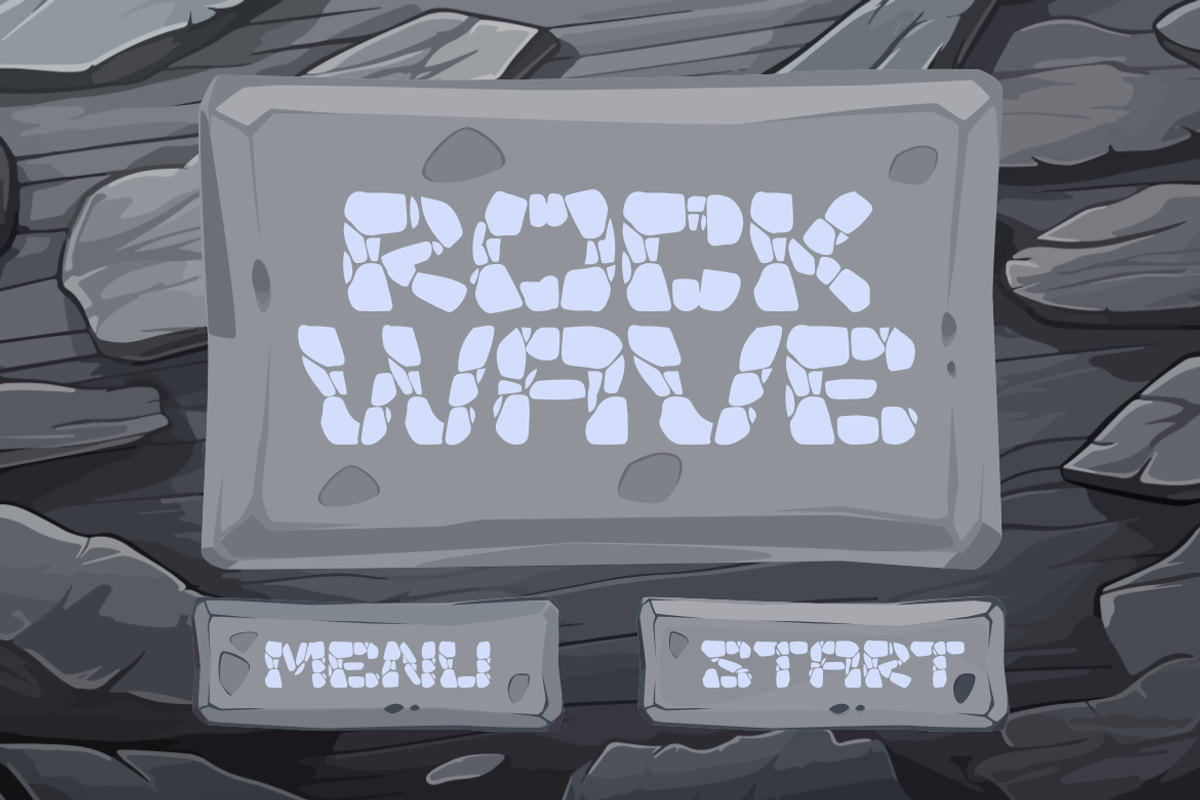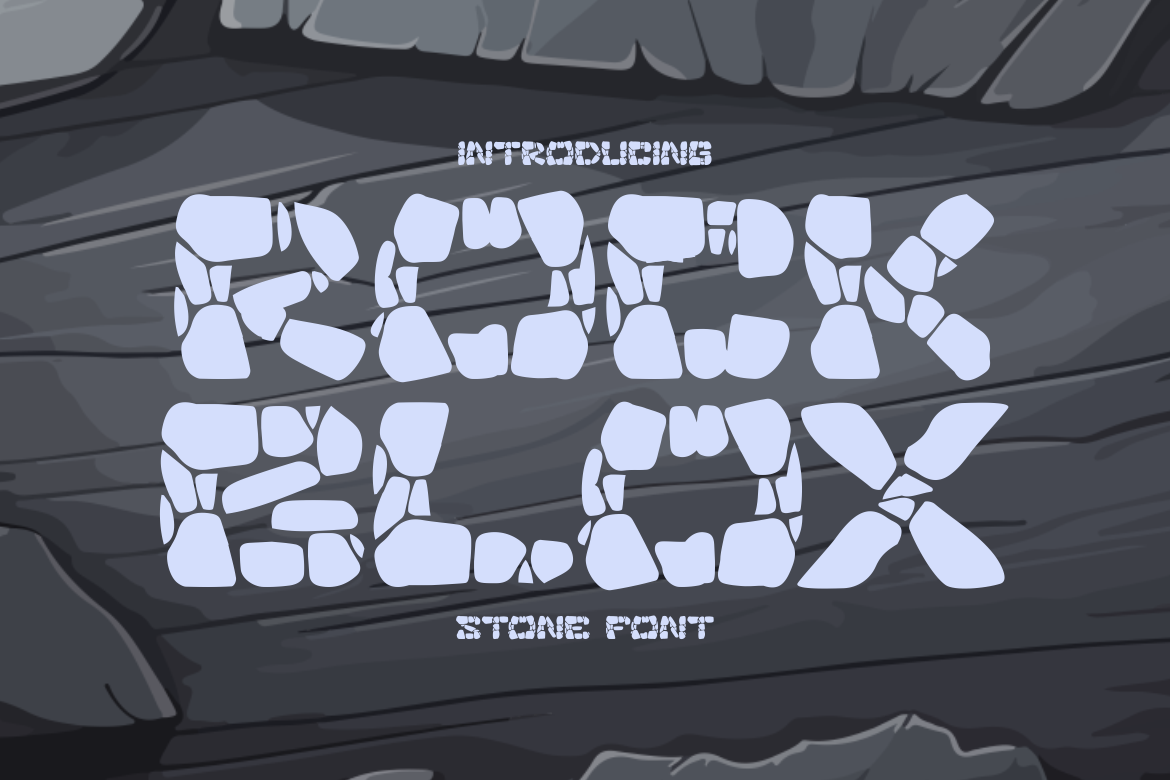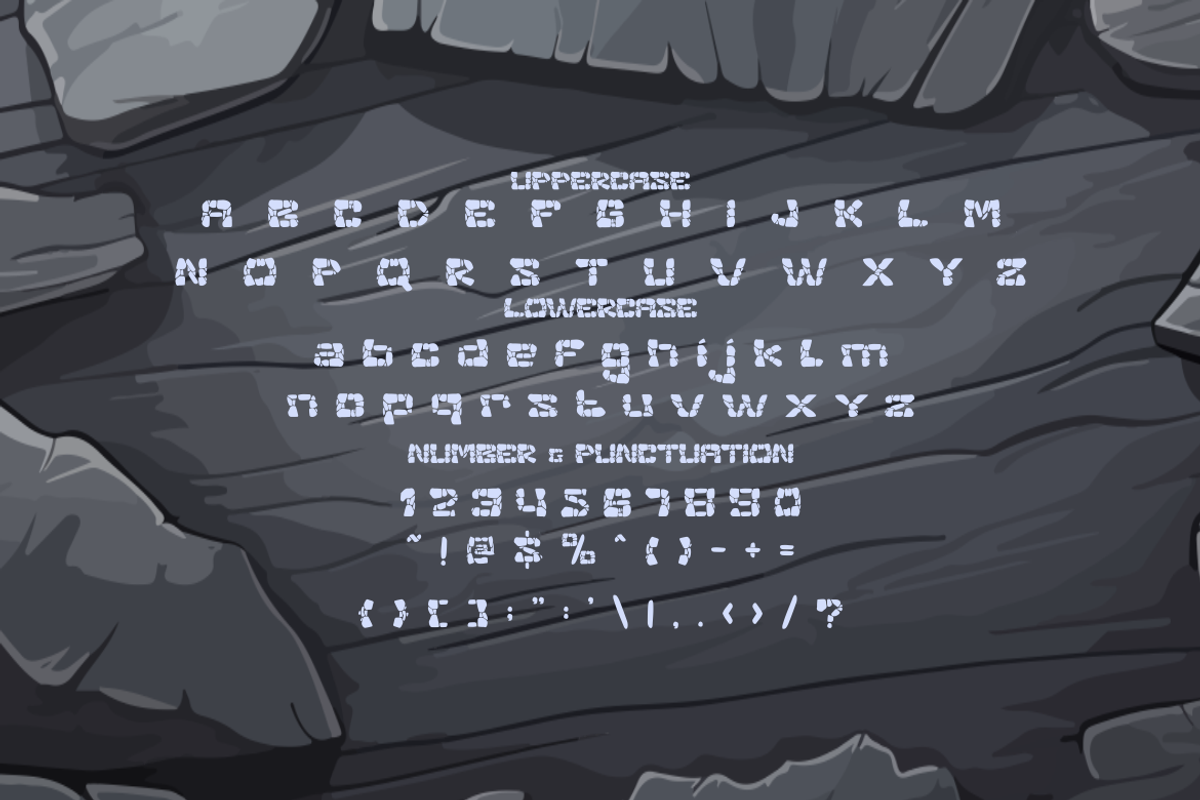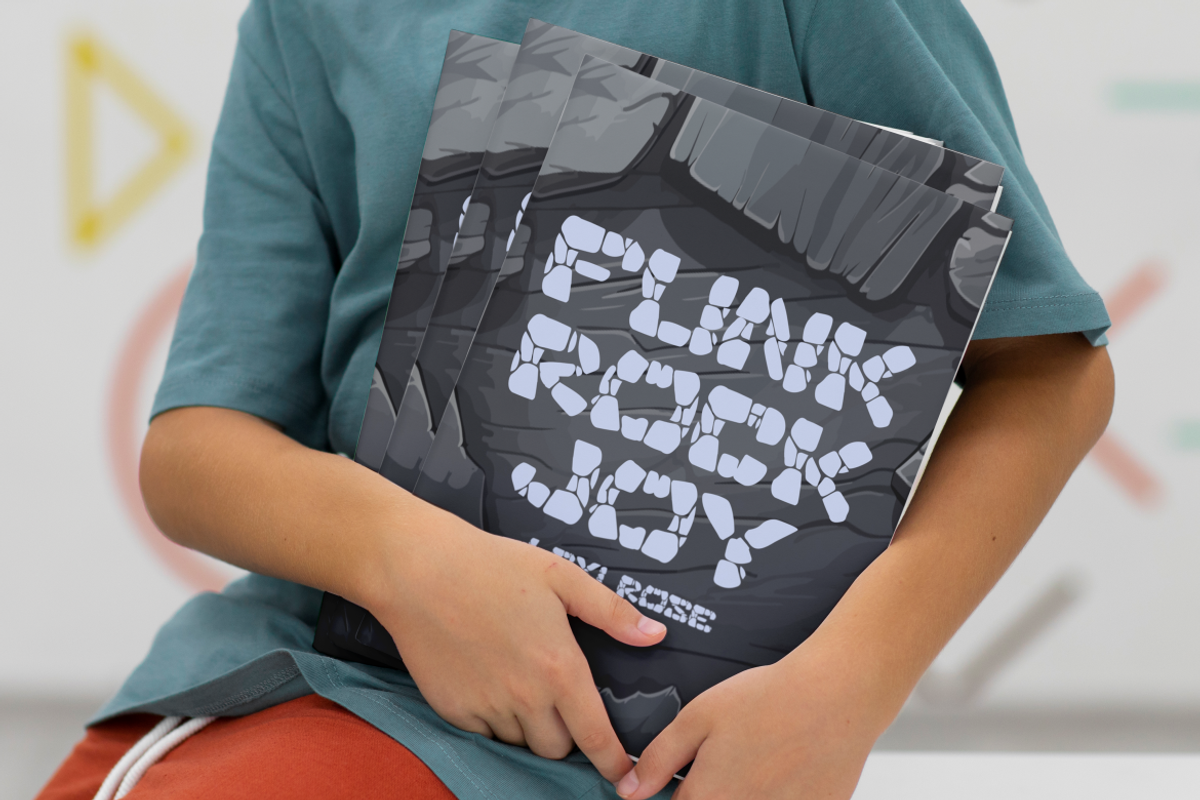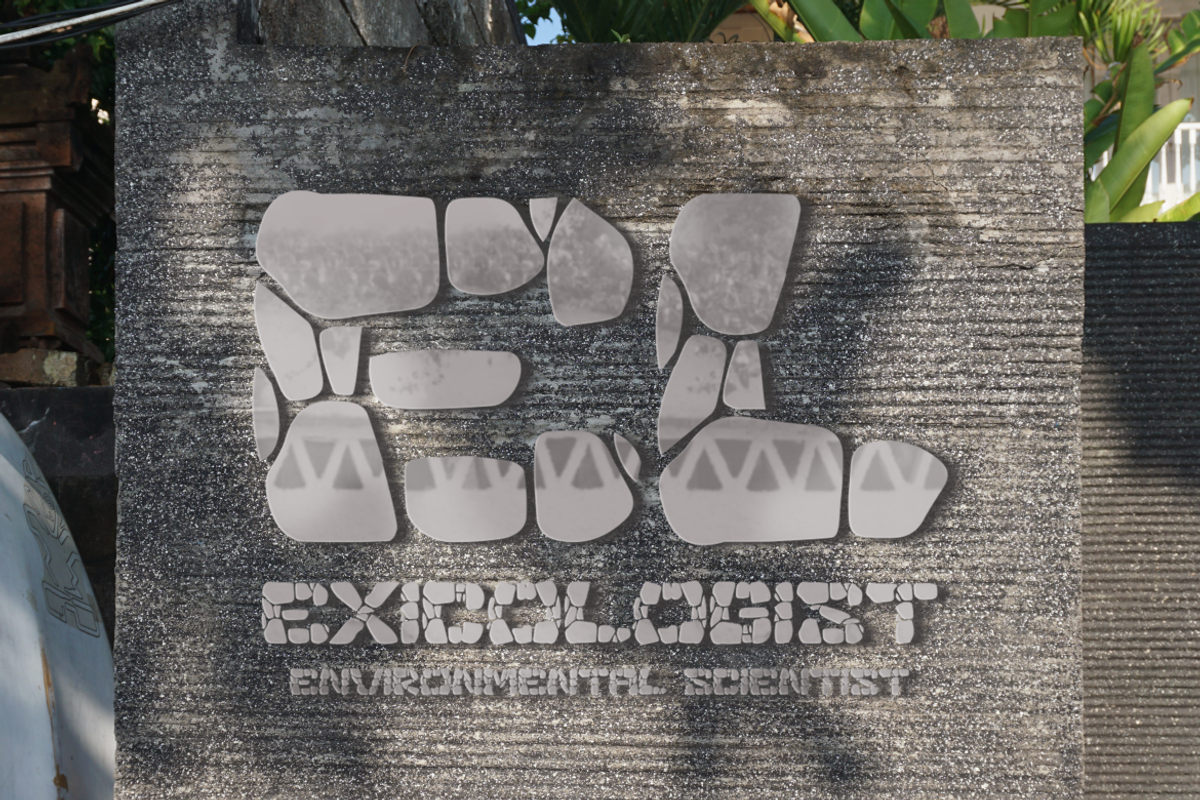
Rock Blox Stone Font
Rock Blox Stone Font brings a strong handcrafted feel inspired by raw rock formations and broken stone pieces. Each letter is formed from irregular block-like fragments that create a striking geometric rhythm. The shapes are thick and uneven, giving the font a natural heavy character. The edges are rounded yet angular, which adds an organic look without losing clarity. This structure builds a textured impression that remains readable in large display compositions. Rock Blox Stone Font combines a playful concept with a bold display style, making it perfect for adventurous and energetic themes. The visual weight stands out, while the fragmented lettering adds personality to every layout.
This font fits many creative needs, including logos, branding sets, posters, film titles, packaging, game interfaces, magazine covers, and event promotions. Its bold broken-stone look works well for crafting projects, stickers, business campaigns, children’s materials, and themed content. The thick letterforms create strong headlines and help long titles stay expressive. Designers can use this font to bring an outdoor feeling, a prehistoric theme, or a fun rocky identity. The structure also supports storytelling designs with rugged moods and natural elements. Its unique shapes bring variety without reducing legibility, making it ideal for entertainment, education, adventure branding, and promotional visuals in many industries.